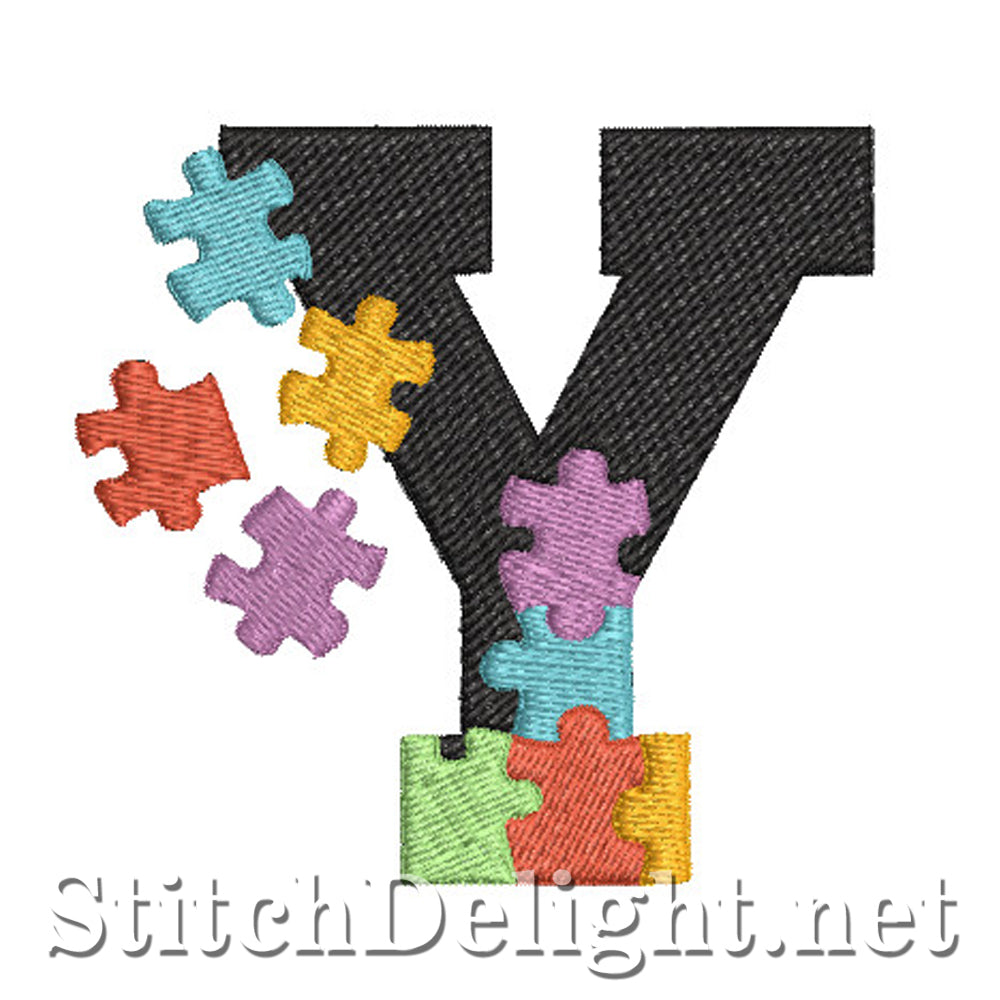
SDS1522 Puzzle Font Y
Colorfull font for the 4x4 hoop, perfect for kids projects, play totes and even autism projects. This is only the capital letters with the moon - background quilting and small letters not included in this set but can be purchased seperately in the fonts section.